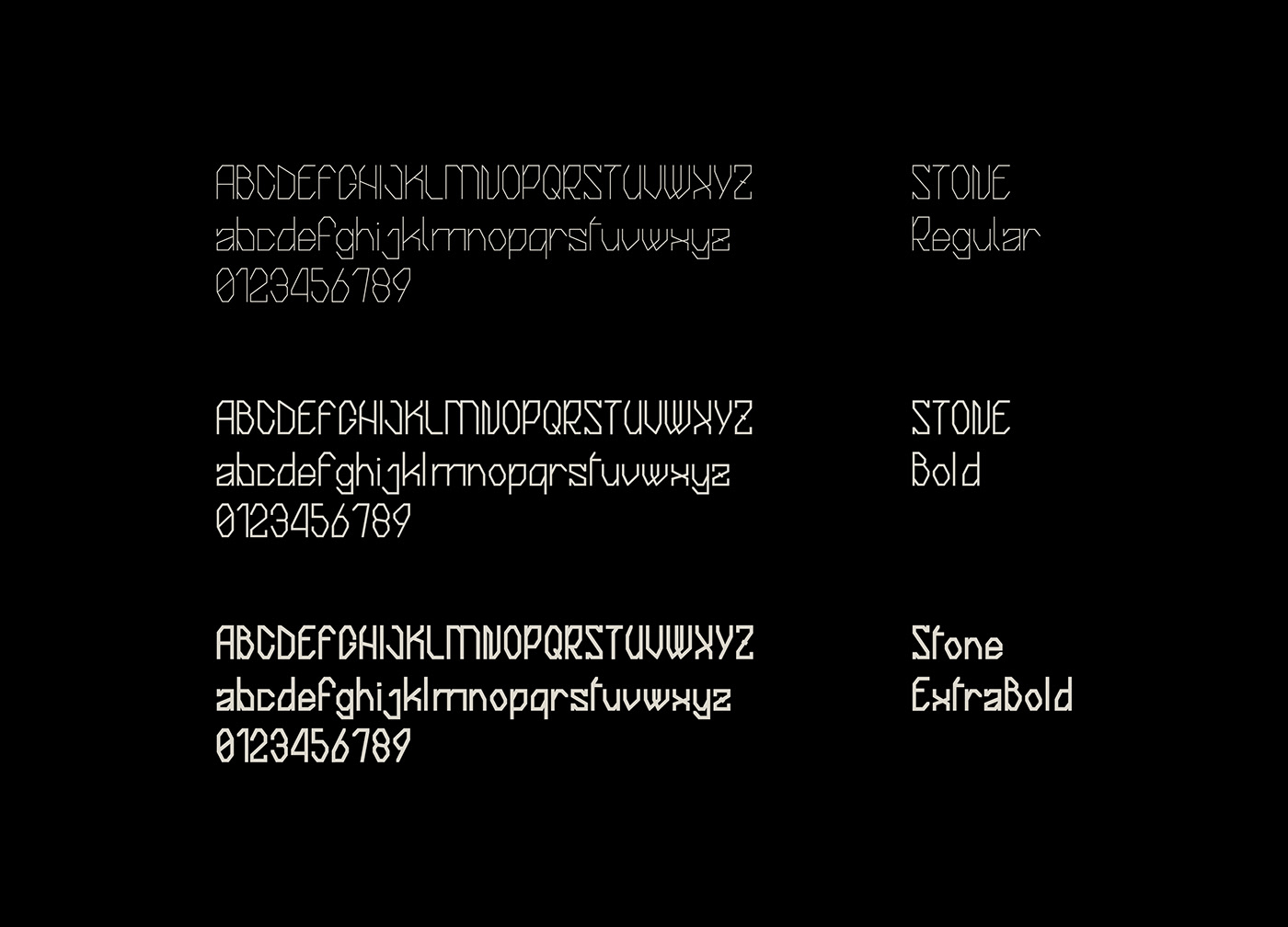
STONE by Andrea Siracusa is a sans-serif typeface inspired by stone tools. Its geometric shapes and minimal aesthetic make it perfect for bold big titles. It comes in three different weights: Regular, Bold and ExtraBold. Overall, STONE is an easy-to-use display font designed to strike.